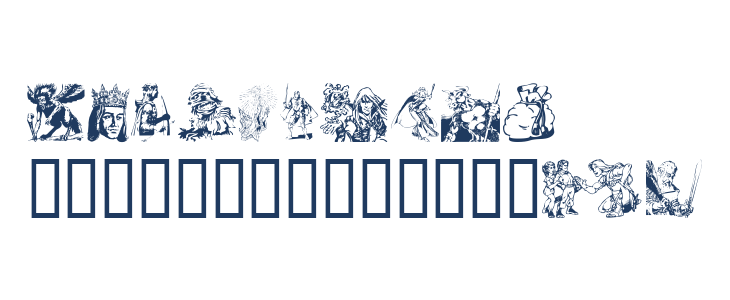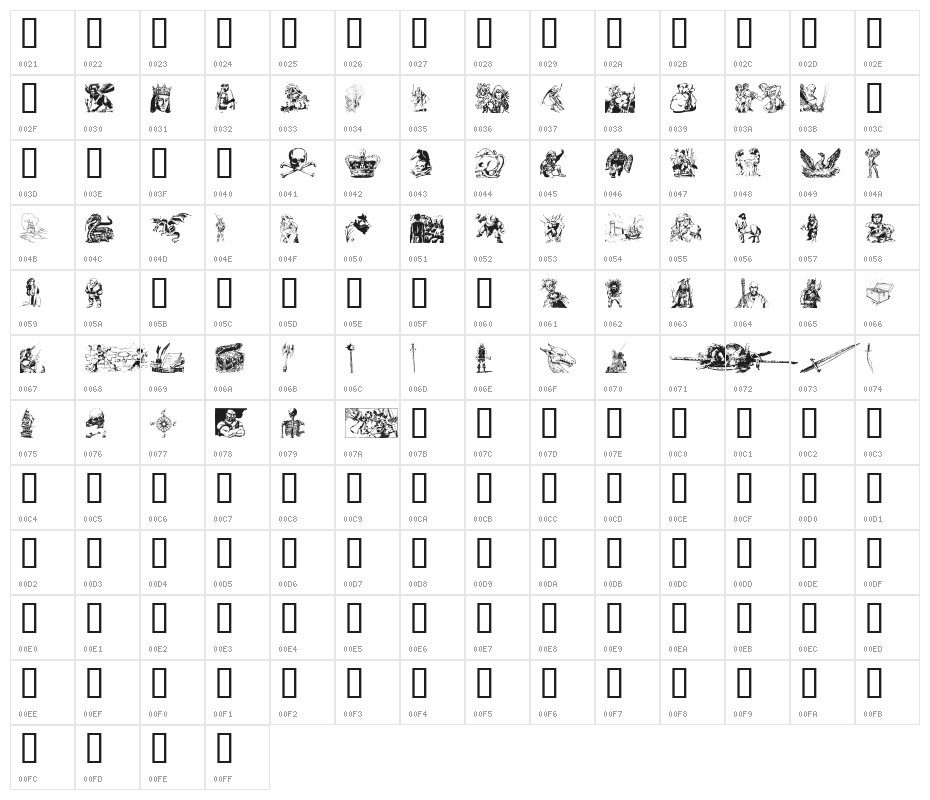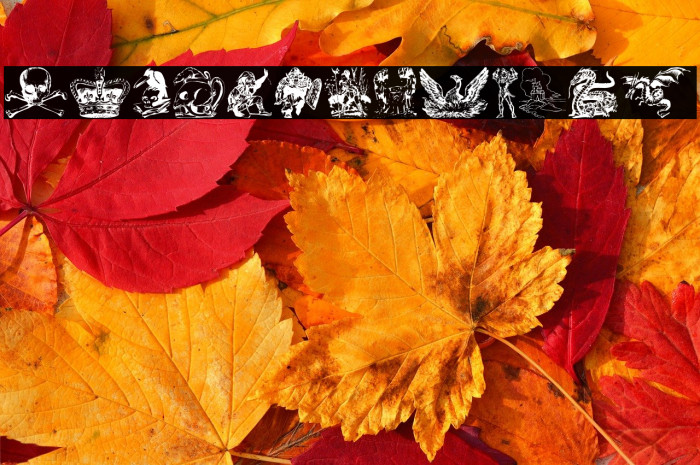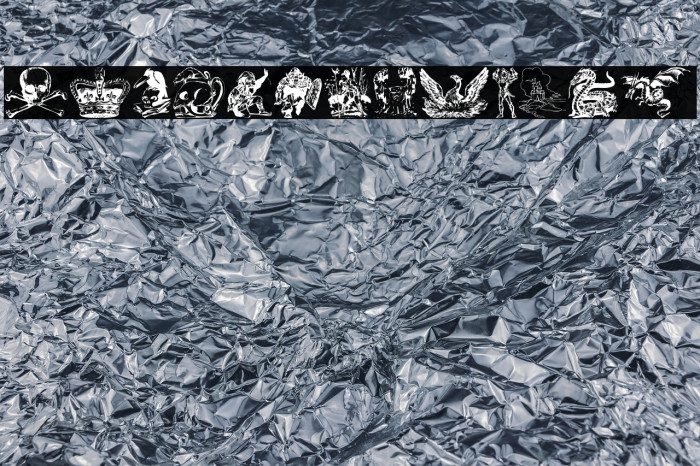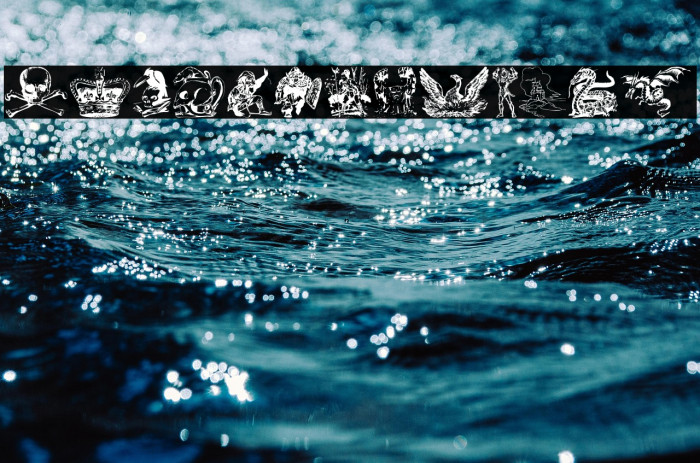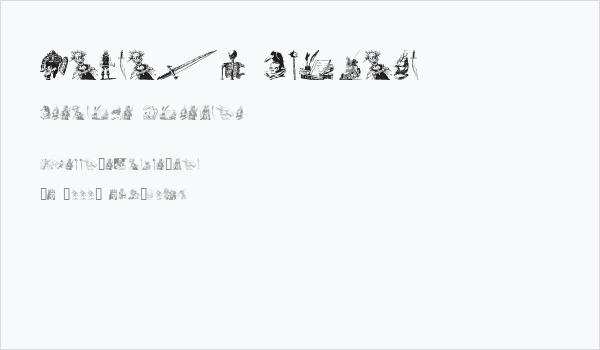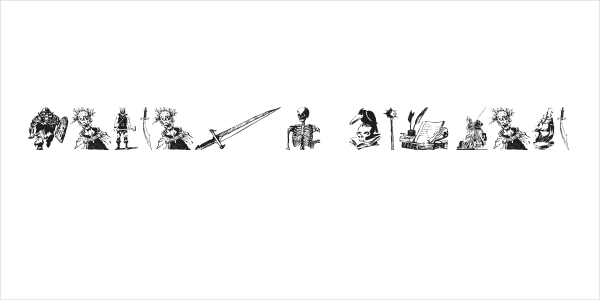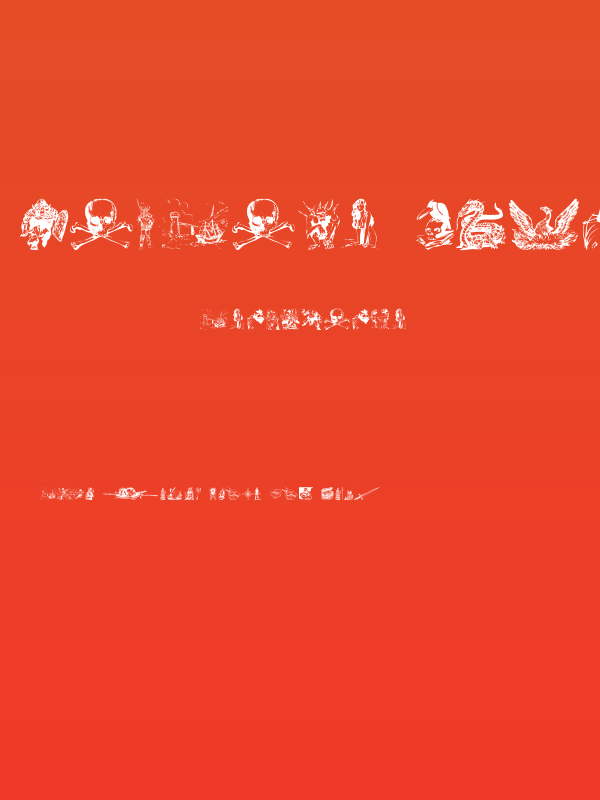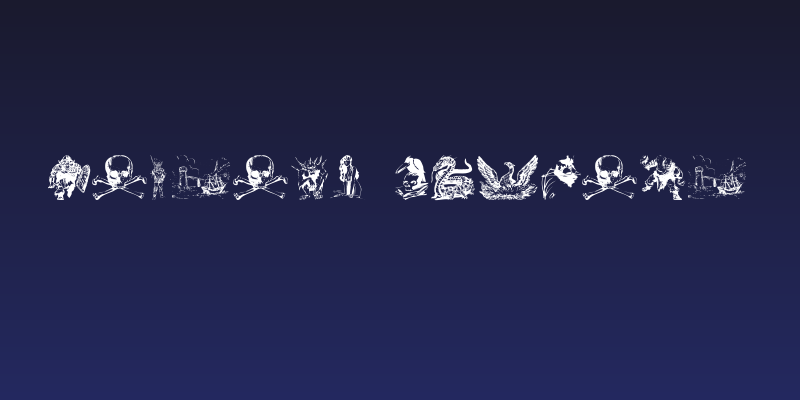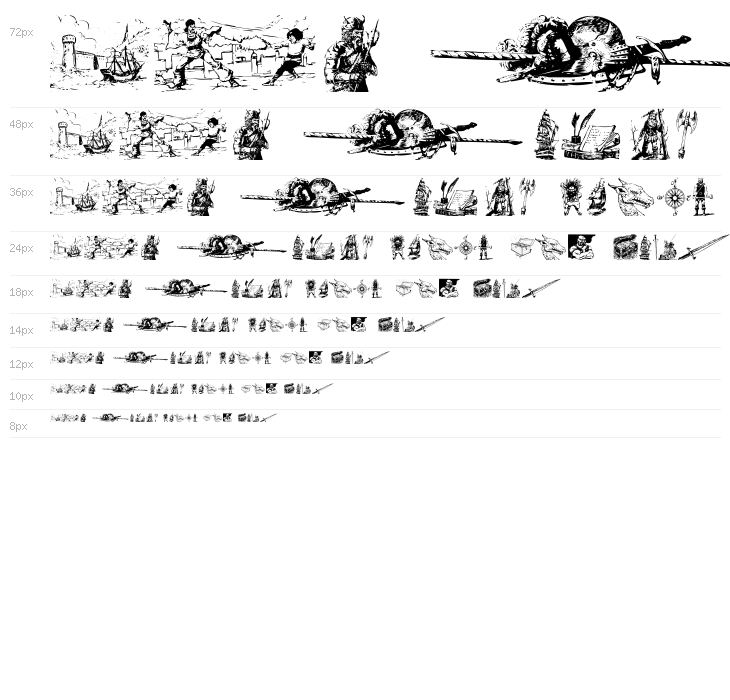
Fantasy Clipart Font
Fantasy Clipart Description
A decorative display font composed entirely of detailed fantasy-themed clipart illustrations, including mythical creatures, warriors, treasure chests, weapons, and other medieval or adventure motifs. Each character is represented by a unique black-and-white drawing with intricate linework and shading.
| Overall Style | Decorative, Fantasy, Illustrative |
| Use Case | Logos, Headlines, Posters, Themed Graphics |
| Proposed Projects | Tabletop RPG materials, fantasy book covers, game titles, event posters, themed invitations. |